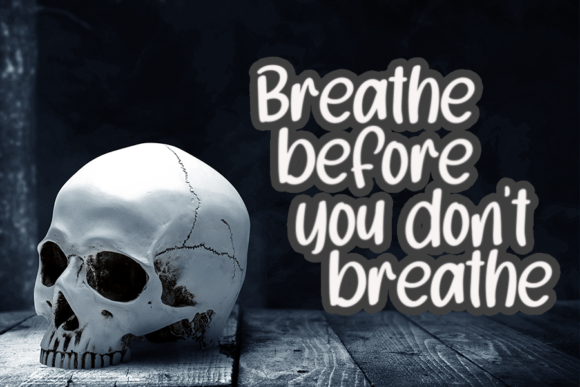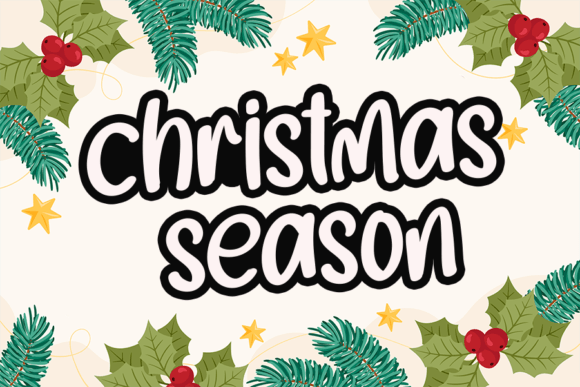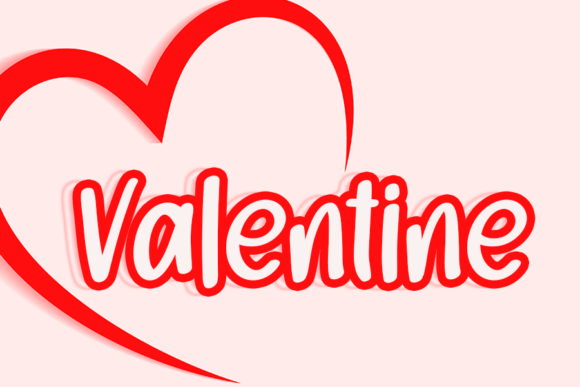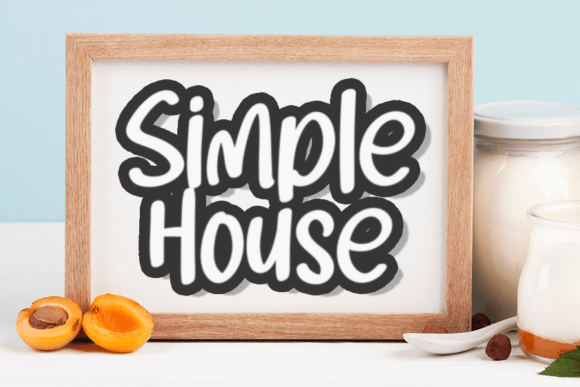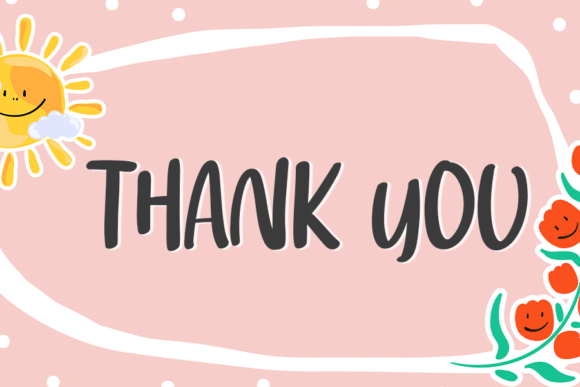
Discover the Joy of Falling Font
Have you ever sat down at your desk, surrounded by scraps of paper, glue, and colorful pens, feeling inspired to create something truly special? Maybe it’s a wedding invitation, a birthday card, or a heartfelt letter to a loved one. Whatever the occasion, you know that the right font can make all the difference.
Enter Falling Font, a charming and whimsical handwritten font designed specifically with celebration days in mind. With its soft, characterful touch, this font is perfect for adding a personal and emotive touch to any design. And with its PUA encoding, you can easily access all the glyphs and ligatures to create truly unique and eye-catching designs.
Falling Font Key Features
- Unique Characteristics: Falling Font features a unique, hand-drawn design with subtle imperfections, giving it a personal and creative touch.
Falling Font Review
Overall, Falling Font is a visually striking and emotive font. It works well in ✨ applications where a sense of movement and fluidity is desired, such as in titles, headings, and other display text. The font’s flowing curves and gentle slopes create a soothing and dreamy atmosphere, perfect for creative projects.
Strengths:
- ✨ Unique and expressive character set, with many ligatures and swashes.
- ✨ Elegant and refined aesthetic, suitable for high-end branding and design.
- ✨ Supports a wide range of languages, making it a versatile choice for multilingual projects.
- ⚠️ Limited legibility in ✨ small text sizes, which can make it challenging to read.
- ⚠️ Not suitable for ✨ text-heavy content, as the flowing curves can make it difficult to focus on the text.
- ⚠️ May not be the best choice for ✨ formal or conservative branding, as its whimsical nature may not fit the tone.
Falling Font is a beautiful and captivating font that excels in ✨ creative and expressive applications. While it may have some limitations, its unique character set and elegant aesthetic make it a valuable addition to any designer’s toolkit.
Falling Font is particularly useful for creating eye-catching headings and titles. It can also be used to add a playful touch to text elements in designs. Some common use cases include:
- Creating invitations and event announcements.
- Designing social media graphics and posters.
- Adding a creative touch to resumes and CVs.